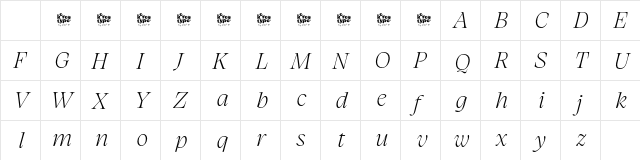
Complete Charlea Demo ExtLt Italic glyph index. Displaying only characters natively supported by Charlea Demo ExtLt Italic font.
Charlea Demo ExtLt is a composed and adaptable typeface that performs quietly and consistently across a wide range of design contexts. The slanted form adds forward momentum and visual energy.
Pro Tip: Use Charlea Demo ExtLt for emphasis, pull quotes, and subheadings where its slanted energy can add rhythm to the layout.